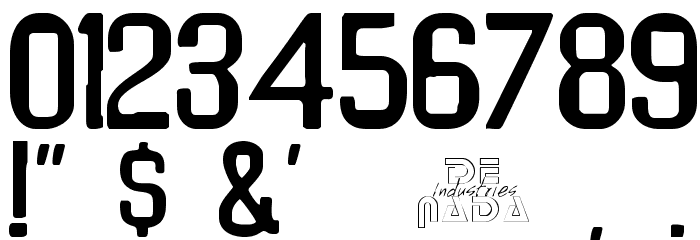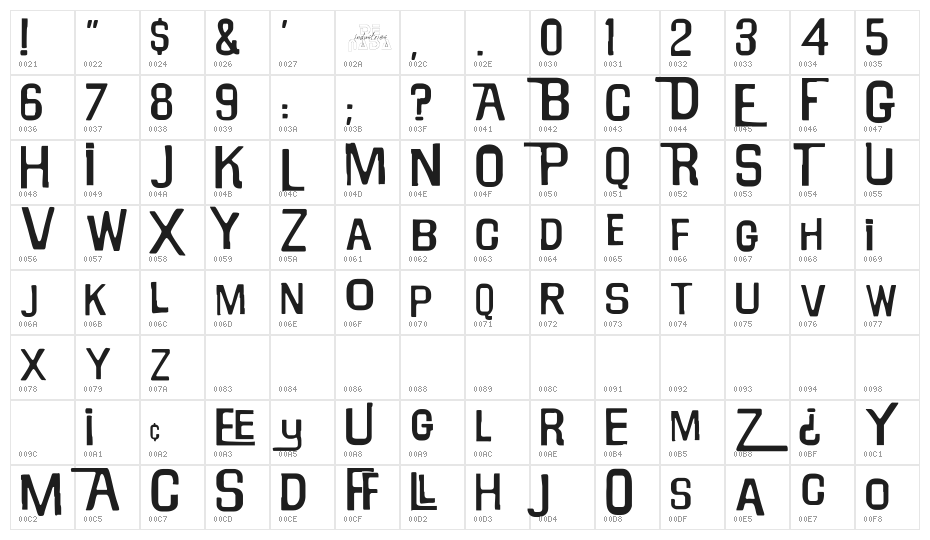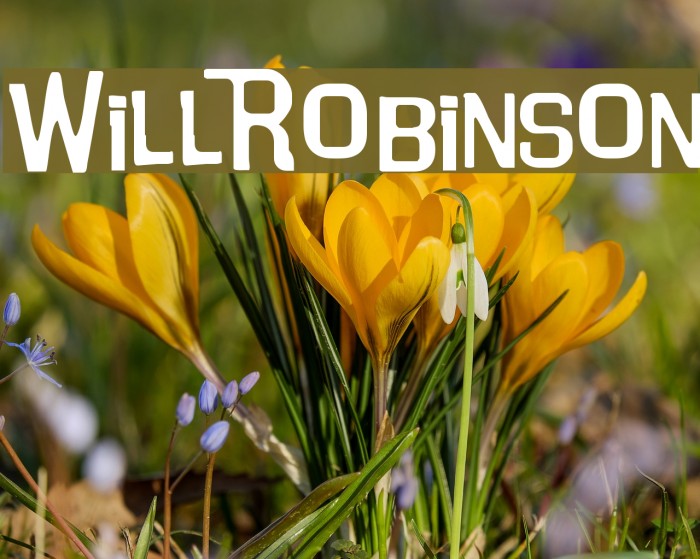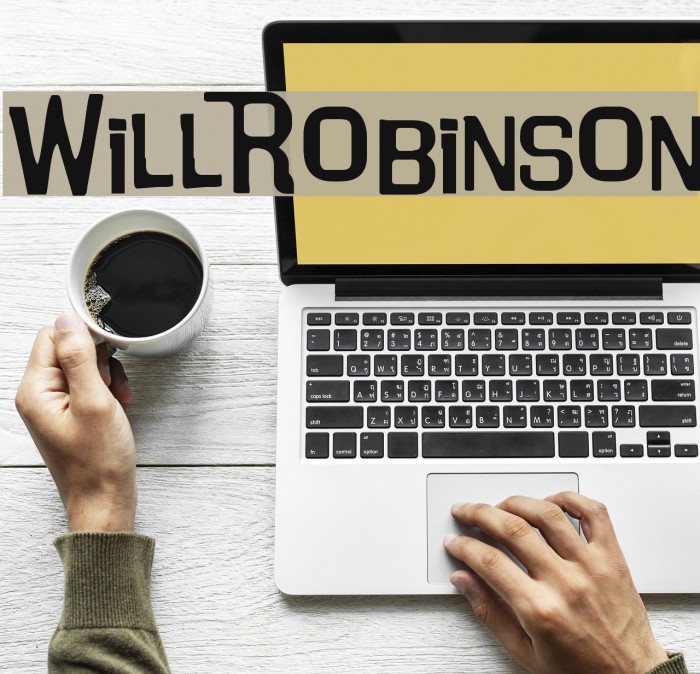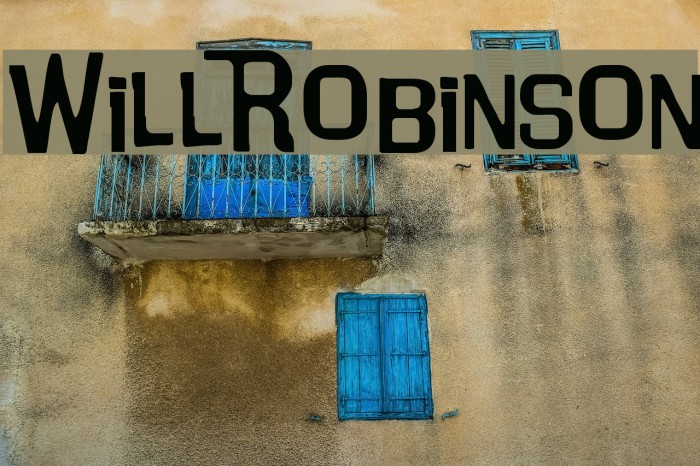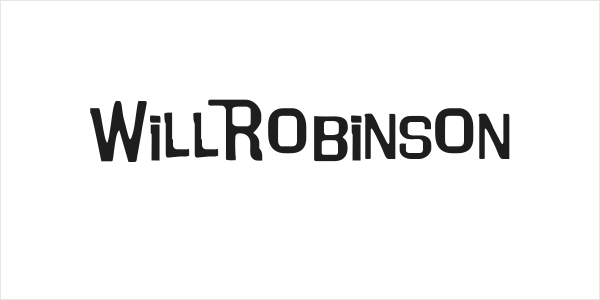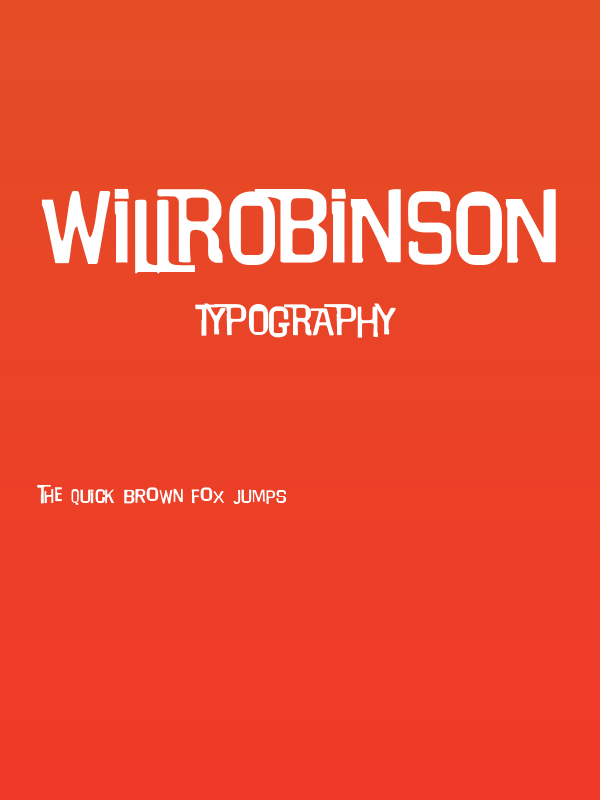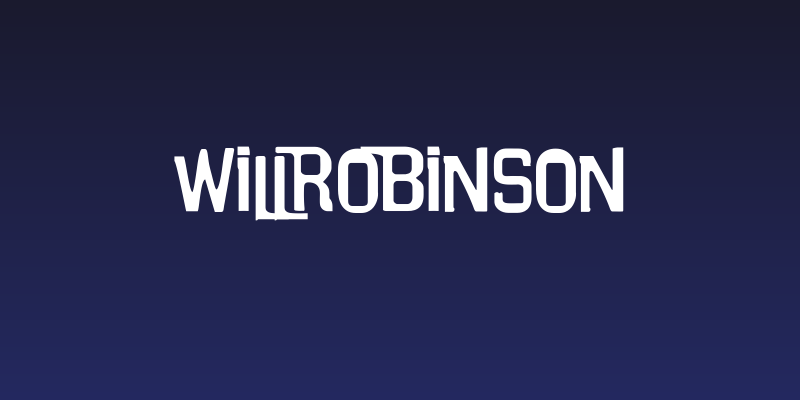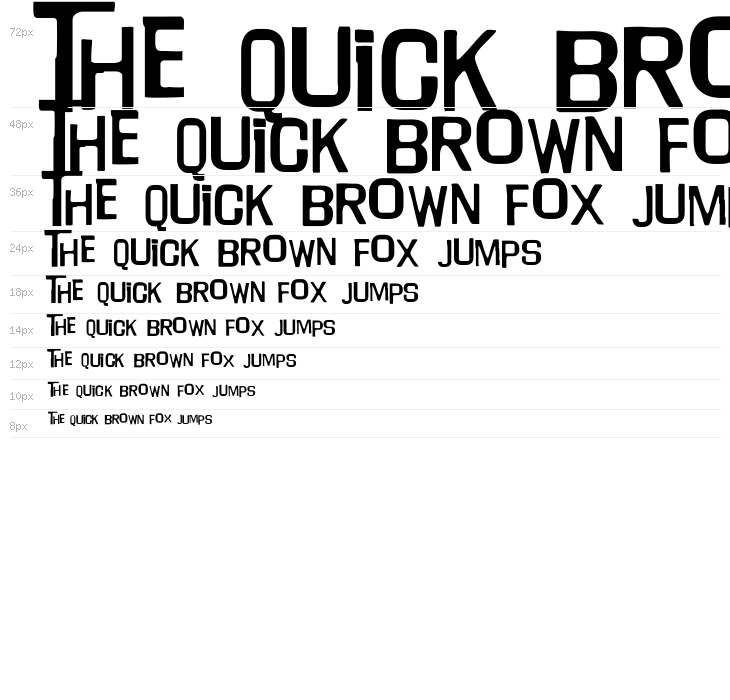
WillRobinson Font
WillRobinson Description
This font features a bold and dynamic style with a modern twist. The uppercase letters are characterized by their strong, geometric forms, while the lowercase letters maintain a consistent flow, adding a touch of elegance. The numbers are equally bold, ensuring readability and impact. Special characters are designed to complement the overall aesthetic, making them suitable for a variety of uses. The font's unique style is both eye-catching and versatile, making it ideal for creative projects that require a distinctive look.
| Proposed Projects | Ideal for branding, poster design, and creative advertising campaigns. |